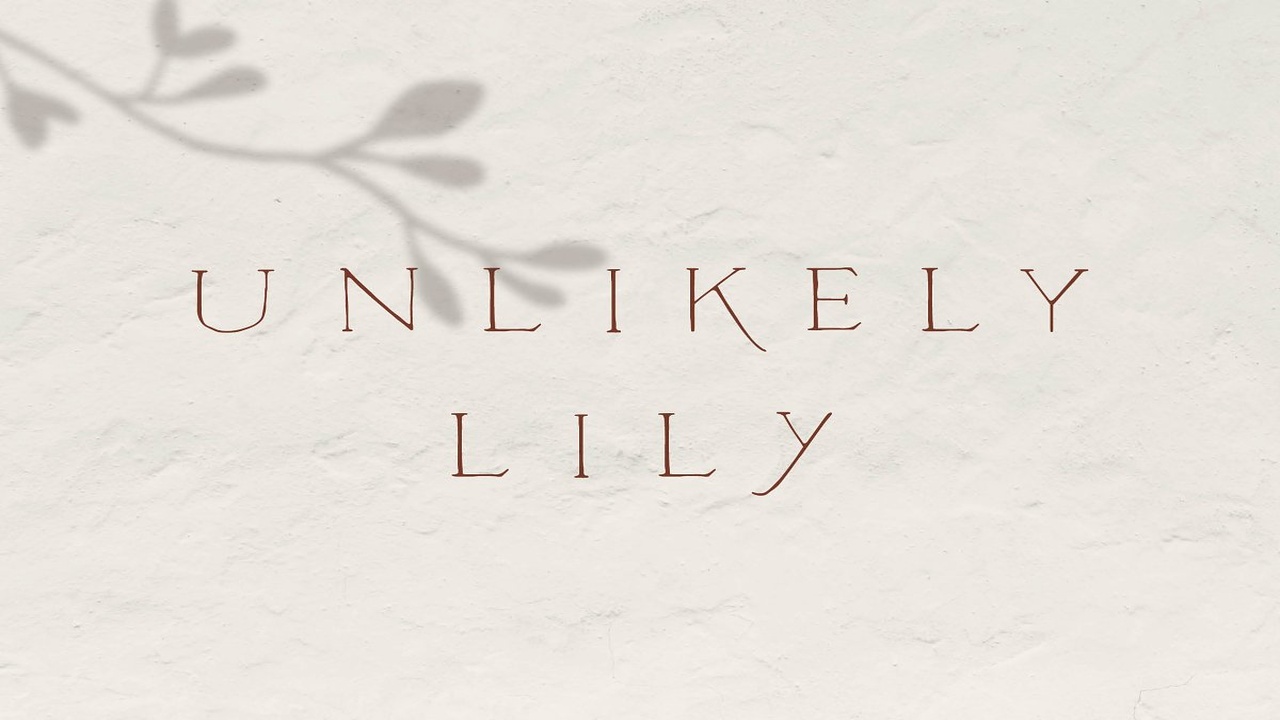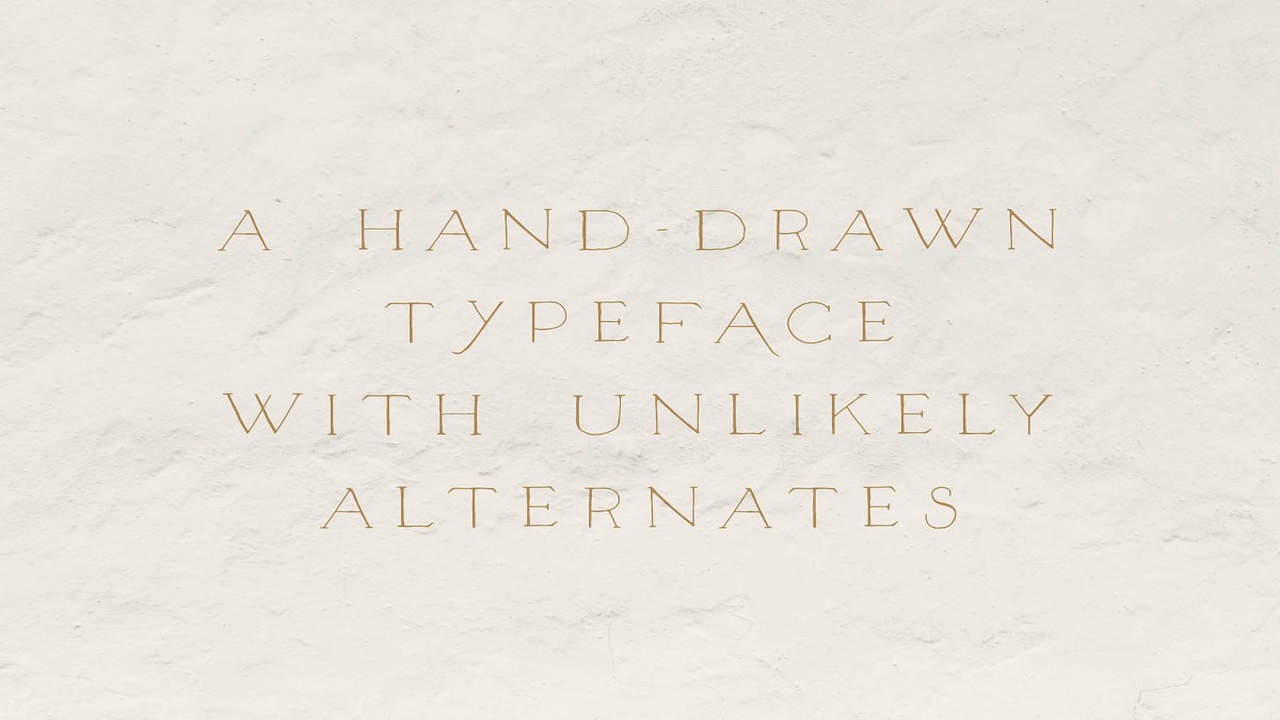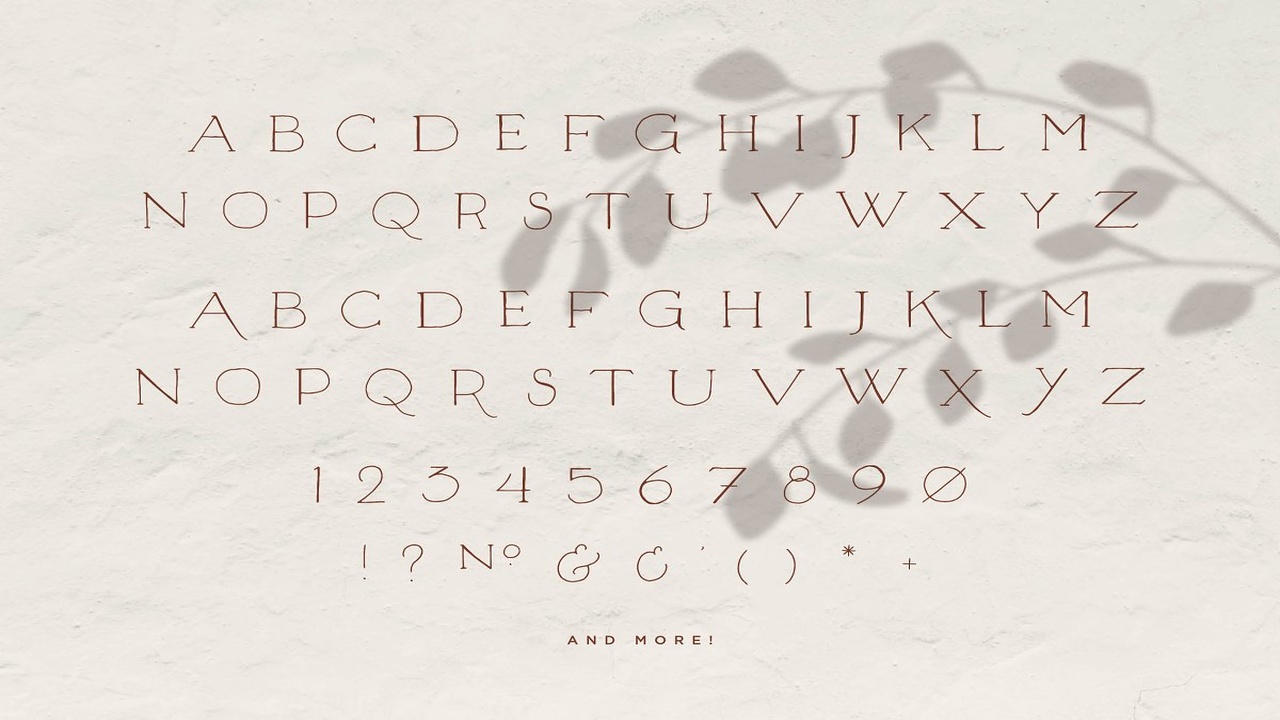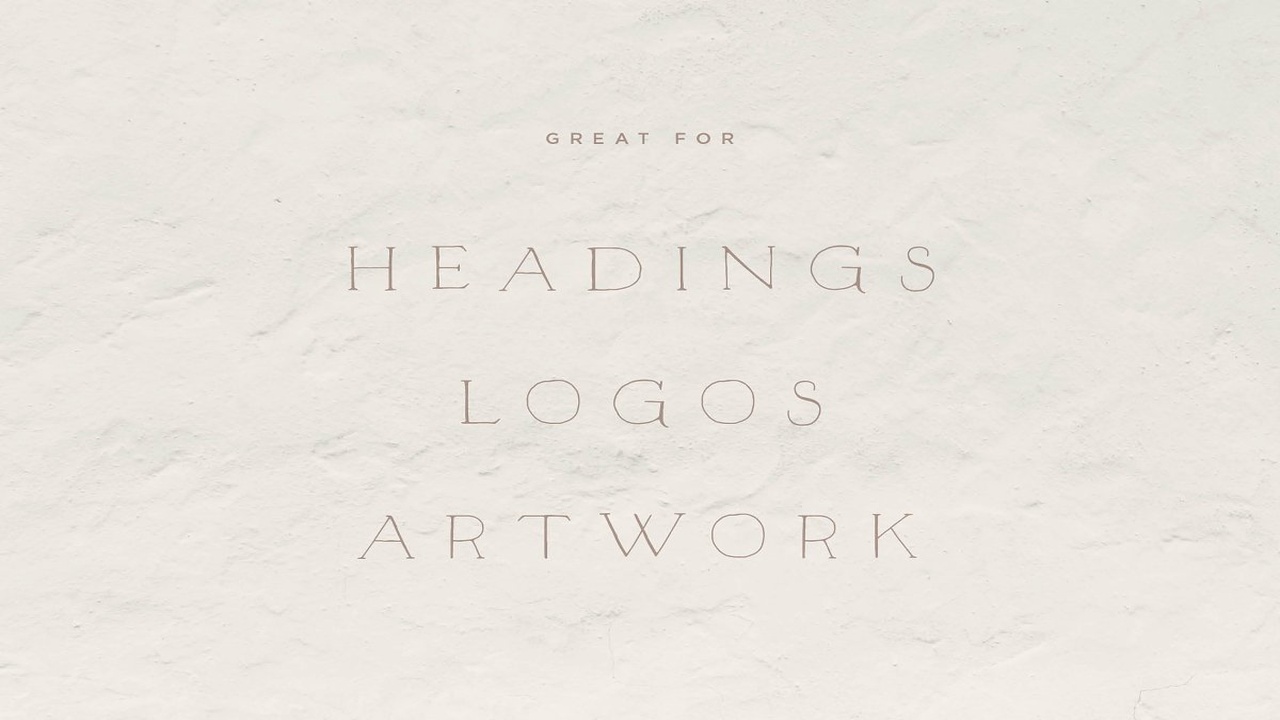
About the Unlikely Lily A Hand Drawn Serif Font
Unlikely Lily is a display serif typeface for lovers of the handmade, Each letter was carefully drawn by hand and alternates were thoughtfully chosen to give just enough wonky-ness to the overall feel, Great for logos, headings, and artwork, it’s perfect for when you need something hand-drawn but aren’t going to hand-draw it all, Part of the joys of hand-lettering is the imperfections that inevitably go along with it – Unlikely Lily is a celebration of those